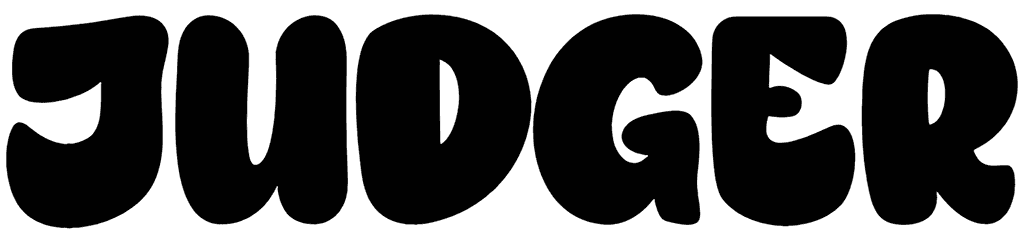
Judger Font
If you feel that your graphic content looks boring and repetitive, then you must take the best possible advantage of a magical fat font similar to the Judger that comes with chunky and bold letters.
Aside from not supporting numbers and lowercase letters, this masterpiece can evoke a sense of jauntiness, disorder, vivacity, or joy in the audience’s minds that makes it a tempting offer for any professional artist. Don’t forget to check out the RB archive.